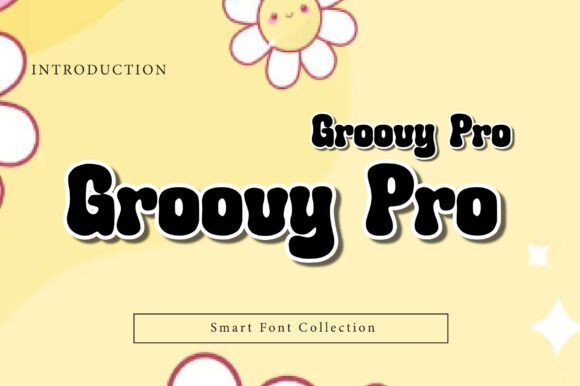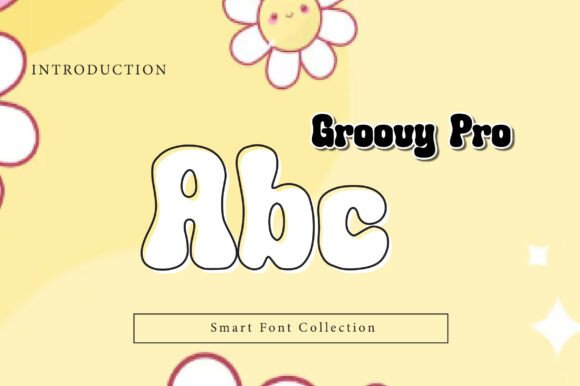
Get Ready to Groove: Unlocking the Power of the Groovy Pro Font
You’ve been staring at your design for hours, and you know exactly what’s missing – that one element that’ll make your project pop. You scroll through your font library, searching for the perfect combination of funk and sophistication. And then, like a ray of sunshine on a cloudy day, you find it: the Groovy Pro Font. This bold, retro-inspired display font is the ultimate game-changer for designers looking to add a dash of classic cool to their work.
With its thick, rounded letterforms and 70s-style personality, the Groovy Pro Font is the perfect tool for creating eye-catching typography that’s full of energy and nostalgia. Whether you’re designing a retro-themed brand identity or a groovy party poster, this font adds instant personality and a bold vintage feel that’s sure to leave a lasting impression.
Groovy Pro Font Key Features
- Font Family: Groovy Pro, a modern sans-serif font with a unique blend of geometric and organic elements.
- Unique Characteristics: Features a distinctive, hand-drawn feel with subtle flair and personality, making it perfect for creative projects and branding.
Groovy Pro Font Review
I recently had the chance to work with the Groovy Pro Font, and I must say it’s an interesting addition to any design project. Here are my honest thoughts on what works well and what could use improvement.
- ✨ **Playful vibe**: The Groovy Pro Font has a fun and quirky personality that’s perfect for designs that need a bit of whimsy.
- ✨ **Customization options**: The font comes with a range of weights and styles, giving you plenty of flexibility to experiment with different looks.
- ✨ **Legibility**: Despite its playful nature, the Groovy Pro Font is surprisingly easy to read, making it a great choice for body text.
- ⚠️ **Limited professional appeal**: While the Groovy Pro Font is perfect for fun and creative projects, it may not be the best choice for more formal or professional designs.
- ⚠️ **May not work well at smaller sizes**: The font’s playful nature can sometimes make it difficult to read at smaller sizes, so be sure to test it out before using it for body text.
The Groovy Pro Font is a great choice for designers who want to add a bit of personality to their projects. While it may not be the best choice for every design, it’s a fun and versatile font that’s sure to bring a smile to your face.
Tips for Getting the Most Out of Groovy Pro Font
Use the Groovy Pro Font for creative projects that require a unique and eye-catching font.
Experiment with different font sizes and styles to achieve the desired effect.
Combine the Groovy Pro Font with other creative elements to add visual interest to your project.
The Groovy Pro Font is commonly used in:
Advertising and marketing materials.
Graphic design projects.
Any project that requires a unique and stylish font.
Alternatives to Groovy Pro Font
The Groovy Pro Font is a popular font known for its unique and playful style. However, it may not be suitable for all designs. Here are a few alternatives that designers can consider.
The Great Vibes Font is a modern, cursive script font that is perfect for creating a fun and relaxed atmosphere. It is ideal for use in titles, headings, and short paragraphs where a touch of personality is desired.
Compared to Groovy Pro Font, Great Vibes Font has a more refined and elegant feel, making it suitable for a wider range of designs. It is also highly customizable, allowing designers to adjust the font’s style to fit their needs.